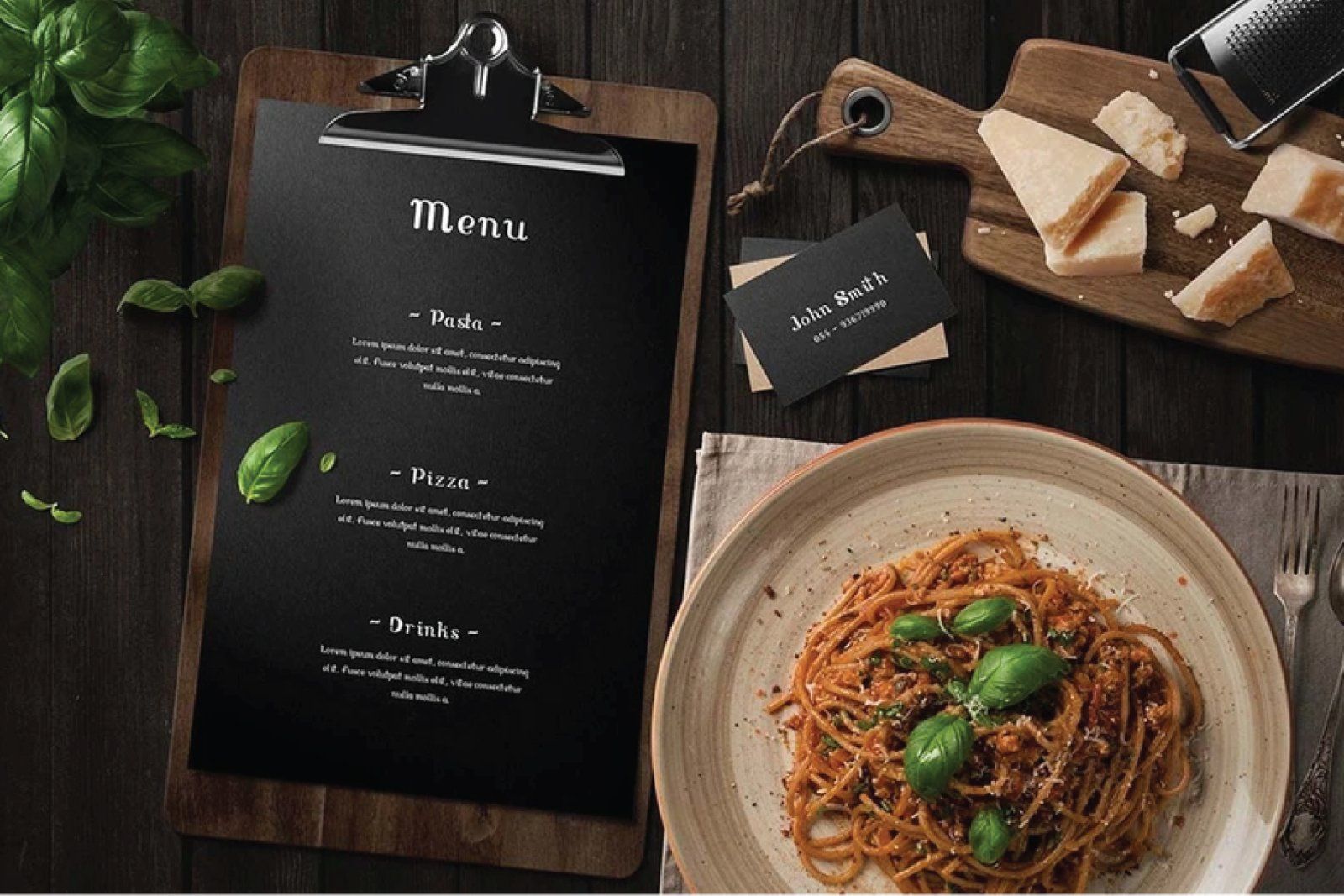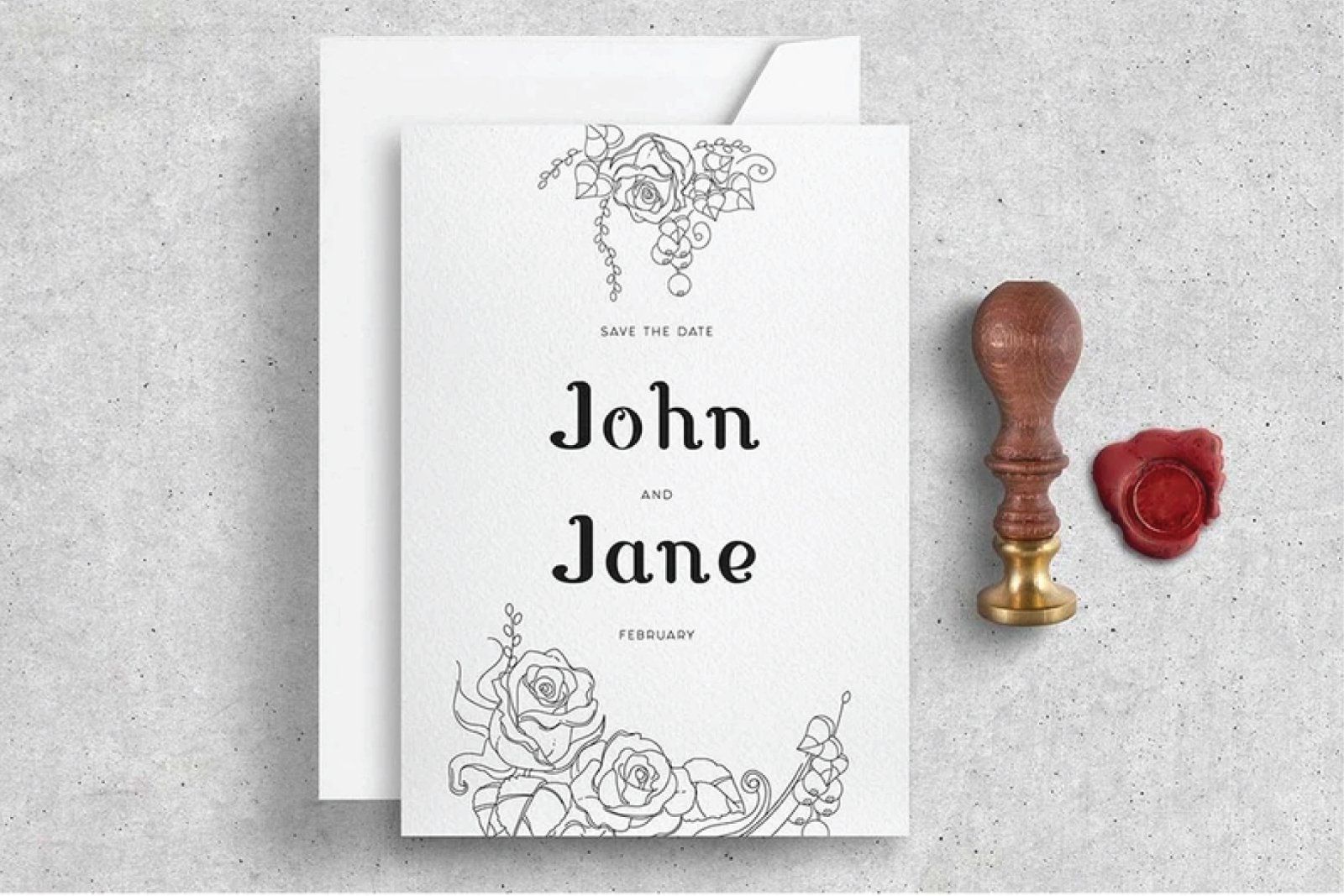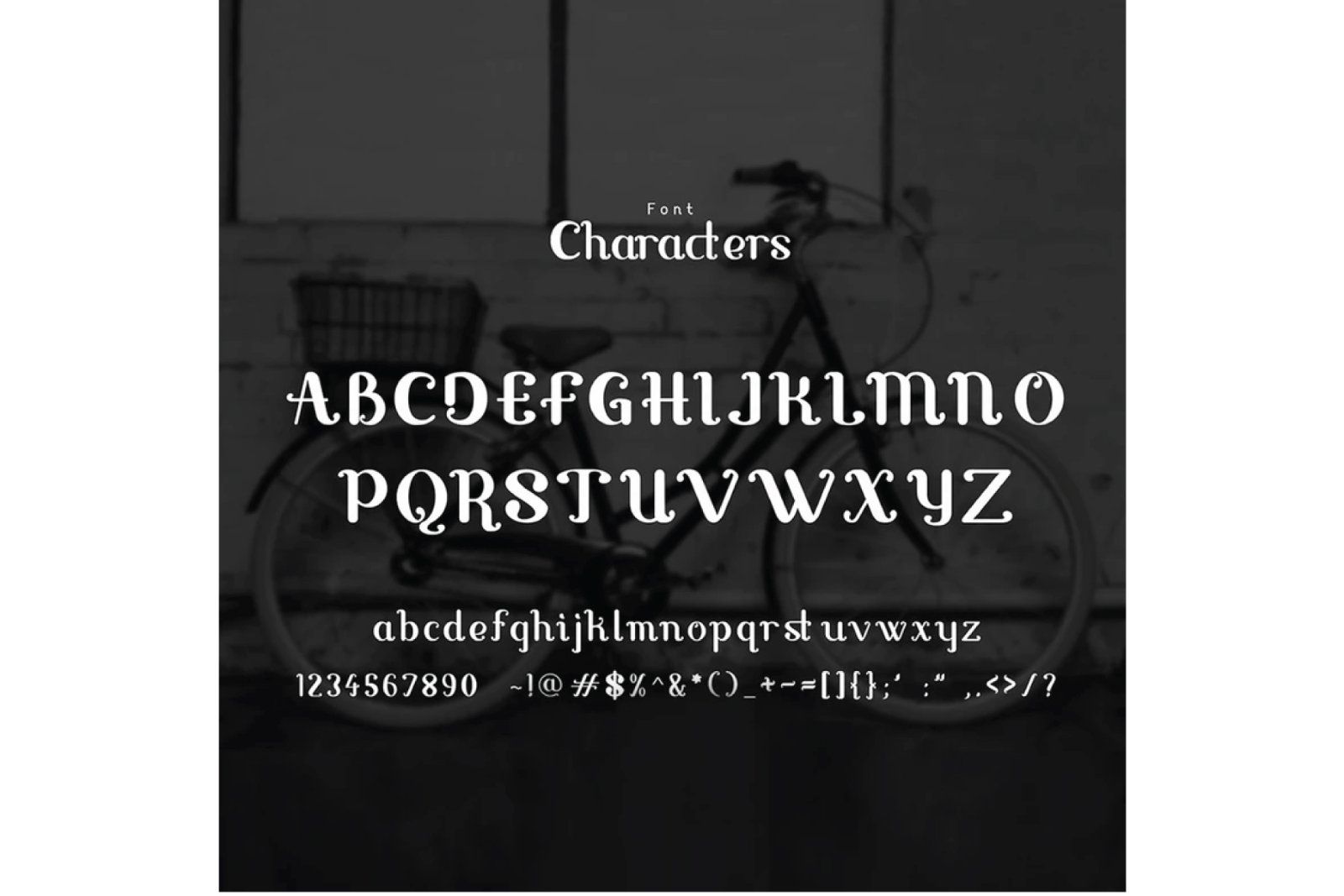
Cut friendly font compatible with Cricut, Silhouette, SCAL and Scan N Cut. It`s thickness makes it an ideal font for making cut files. Available in TTF, OTF, EOT and WOFF format.